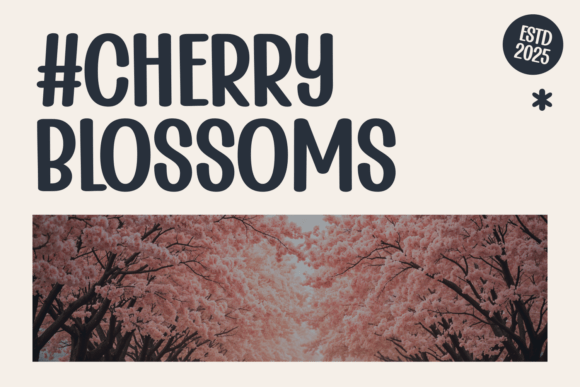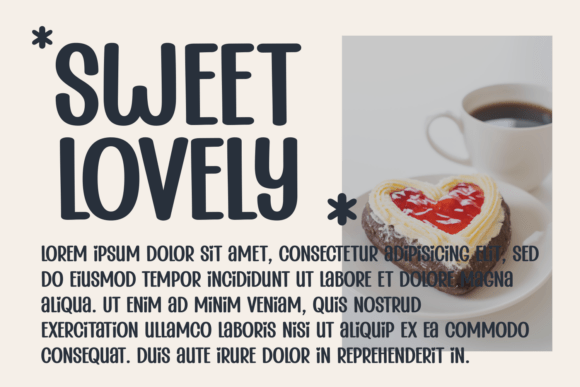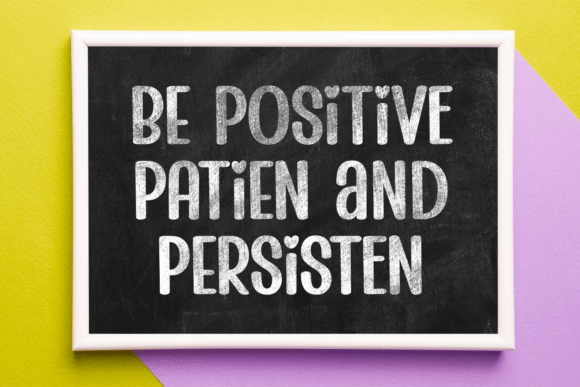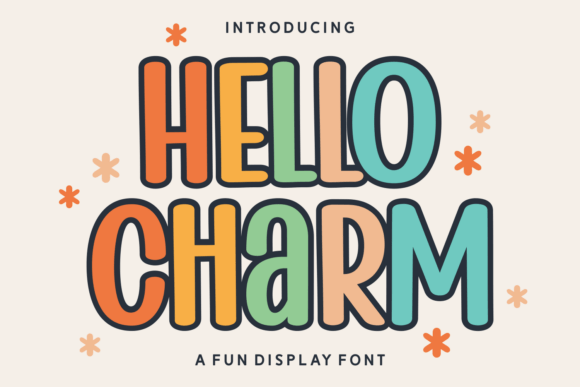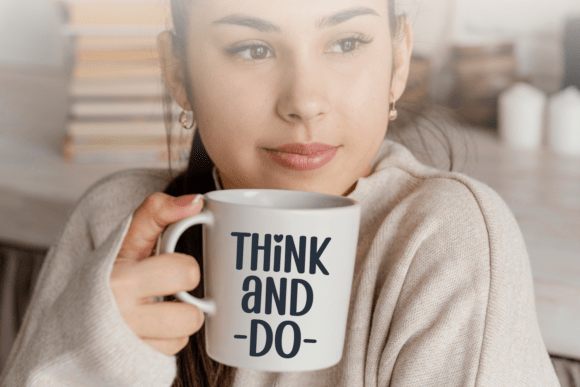
Introducing Hello Charm Font – a whimsical blend of sweetness, charm, and playful elegance. With its soft, gentle strokes and irresistibly cute design, this font brings a magical touch to any project. Perfect for adding warmth and personality, Hello Charm infuses your work with delightful character. Embrace the charm of typography at its most enchanting with this adorable and heartwarming font.